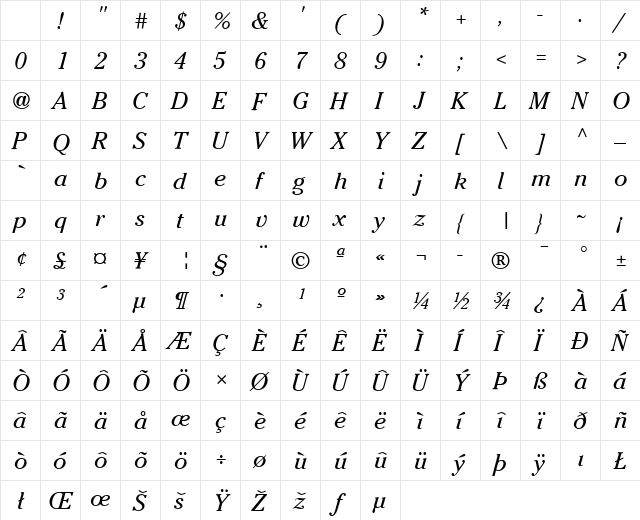
Cheltenham LT is a composed and adaptable typeface that performs quietly and consistently across a wide range of design contexts. The slanted form adds forward momentum and visual energy. Its slender proportions lend an understated elegance to any composition.